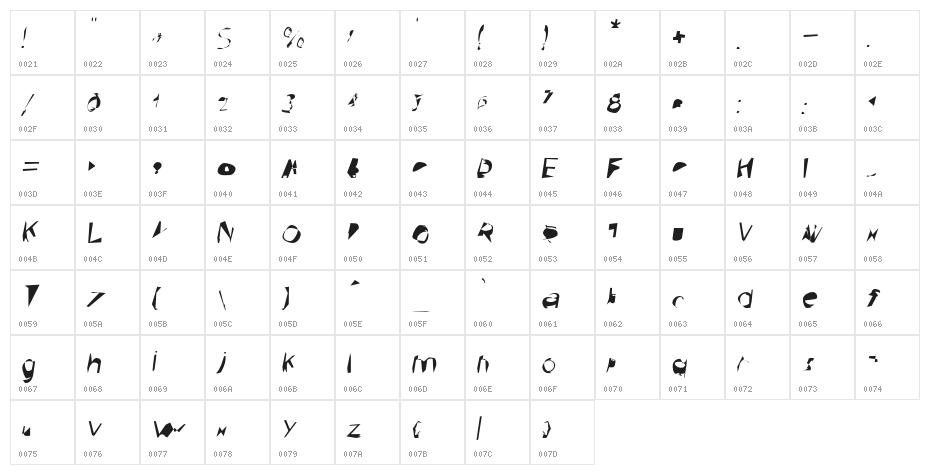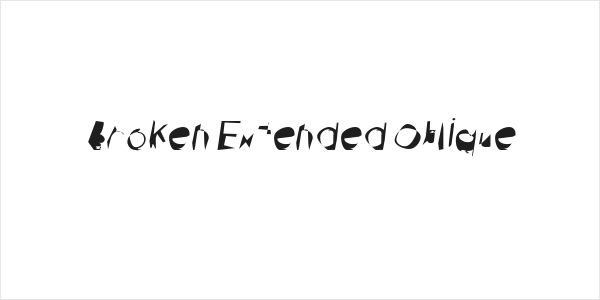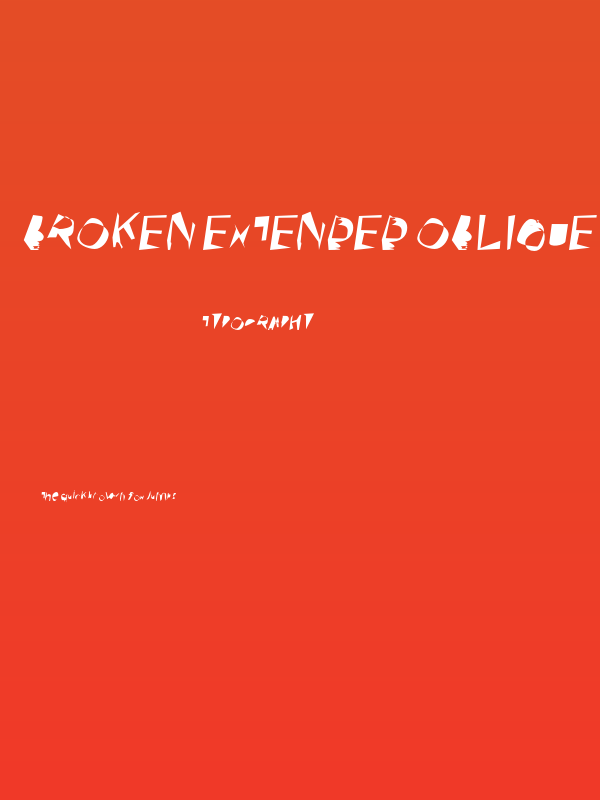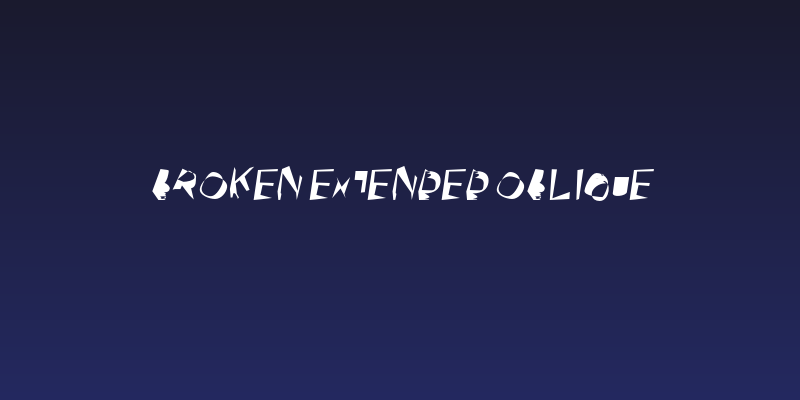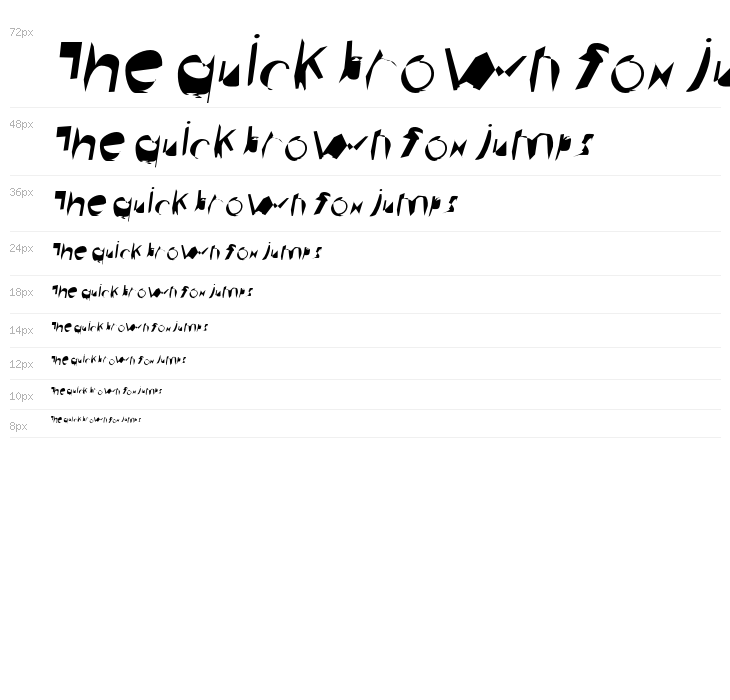
Broken Extended Oblique Font
Broken Extended Oblique Description
This font features a highly abstract and fragmented design, with each character appearing as if it has been shattered or distorted. The strokes are irregular and jagged, creating a dynamic and chaotic visual effect. The overall appearance is bold and striking, with a sense of movement and energy. The characters are not uniform, adding to the unique and unconventional style. This font is likely to capture attention due to its distinctive and avant-garde aesthetic.
Overall StyleModern, Avant-garde
Use CaseLogos, Headlines, Artistic projects
Proposed ProjectsIdeal for experimental design projects, album covers, modern art posters, or any creative work requiring a bold, unconventional typeface.